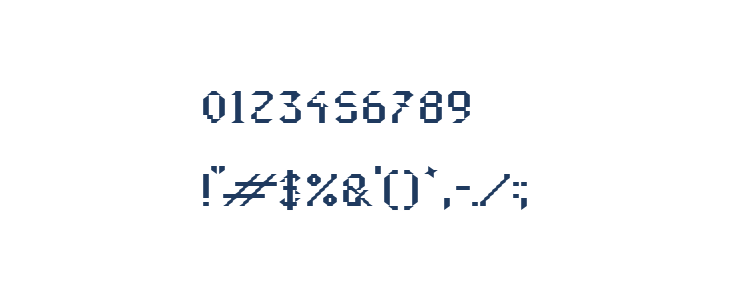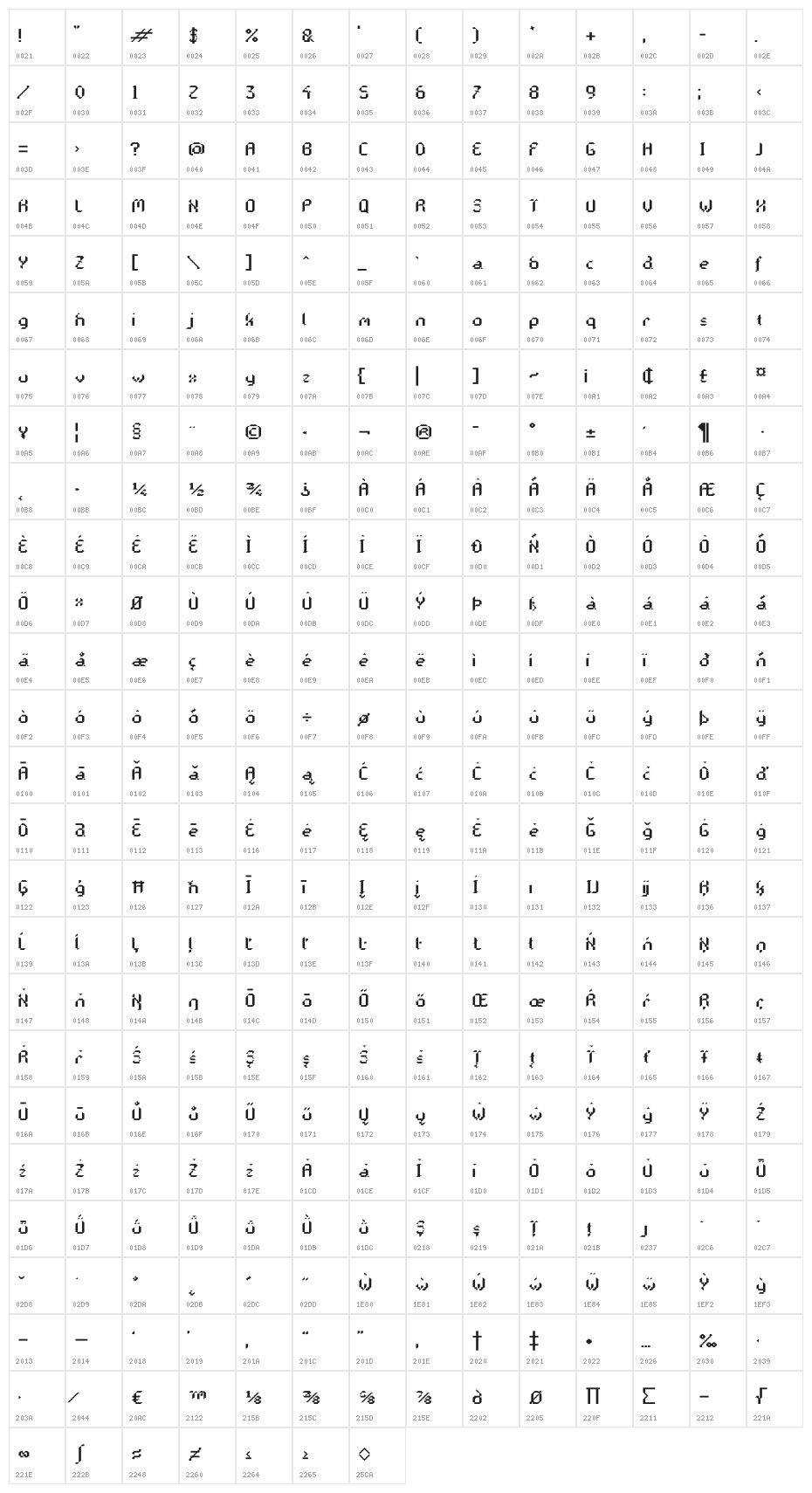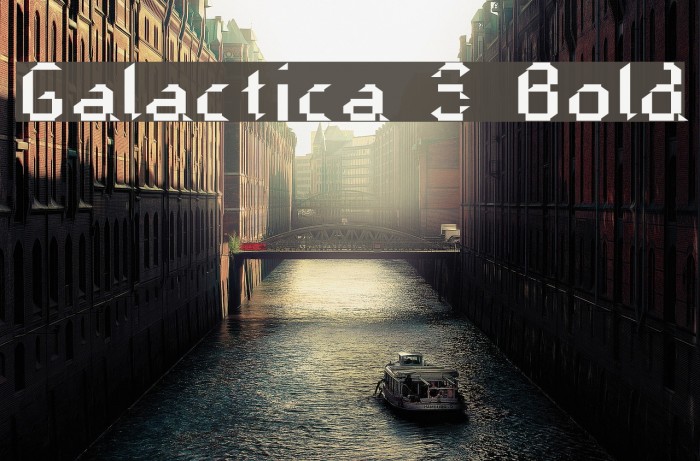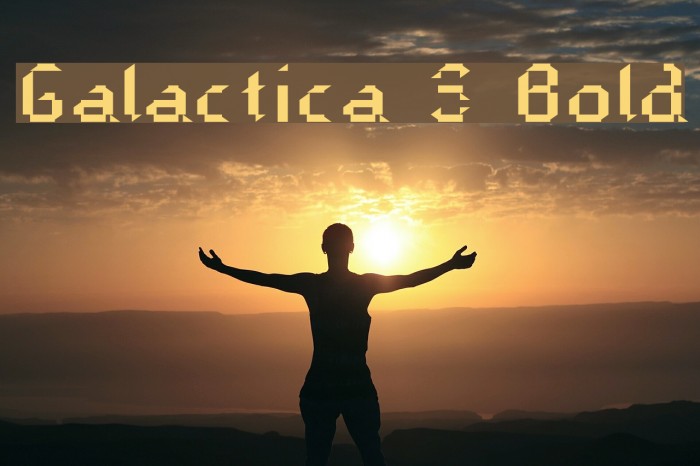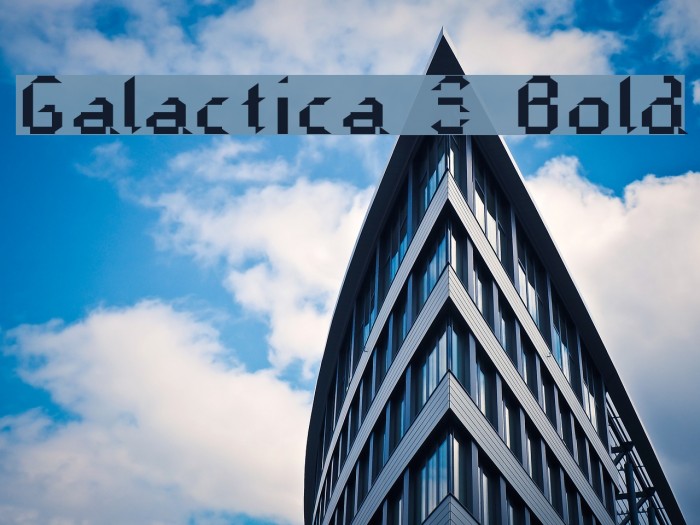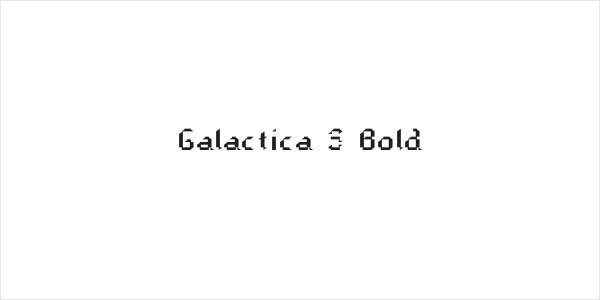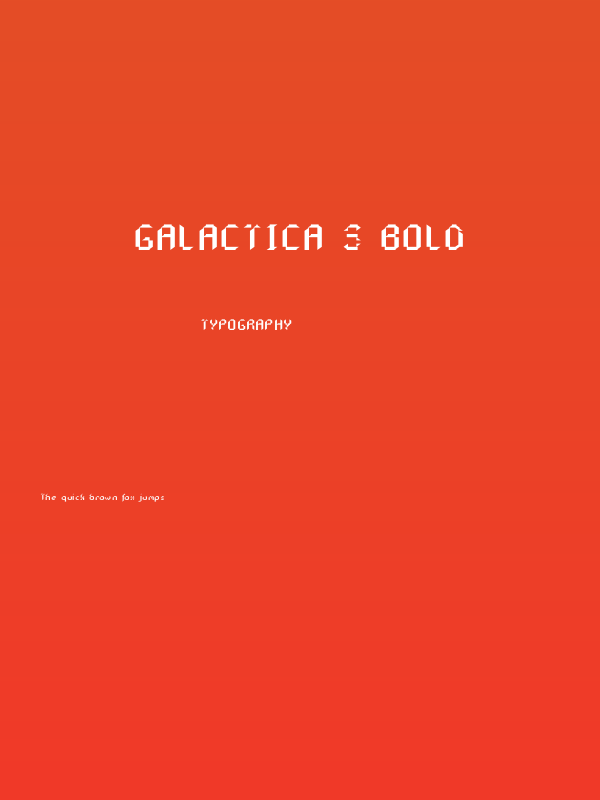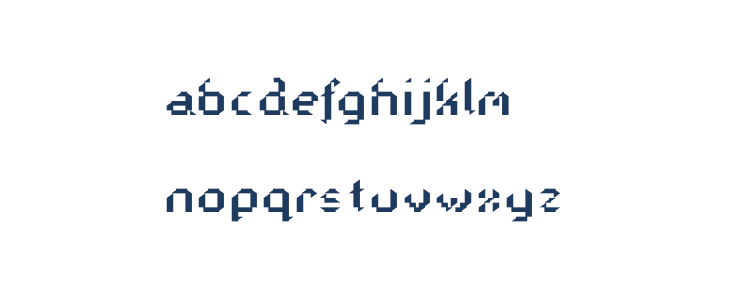
Galactica S Bold Font
Galactica S Bold Description
This font features a futuristic and geometric design, characterized by sharp angles and a blocky appearance. The uppercase and lowercase letters maintain a consistent angular style, with each character exhibiting a unique, edgy form. The numbers and special characters follow the same design principles, ensuring uniformity across the font. The bold weight enhances its presence, making it suitable for attention-grabbing applications. The font's distinct style is reminiscent of digital or sci-fi themes, making it ideal for projects that require a modern and technological aesthetic.
| Proposed Projects | Ideal for sci-fi themed designs, video game titles, tech branding, and futuristic posters. |